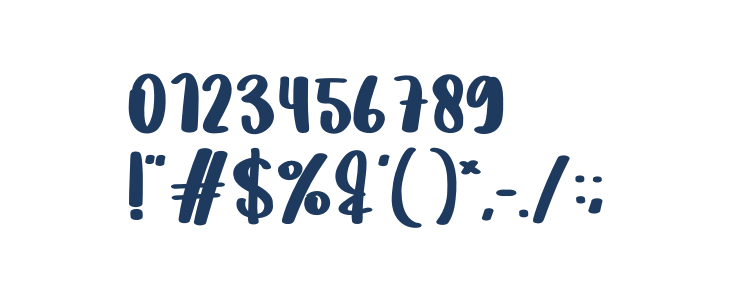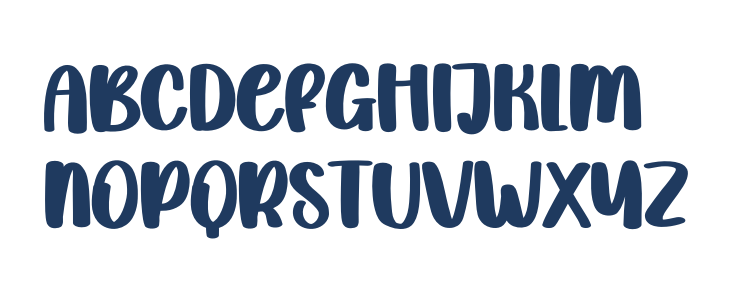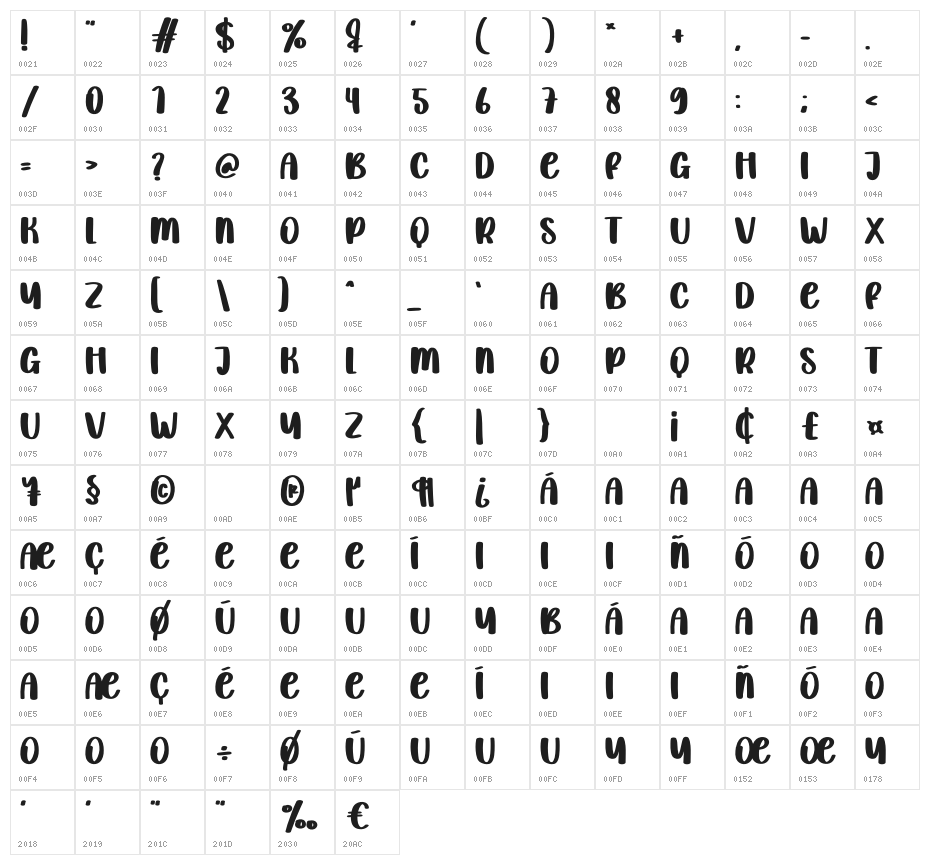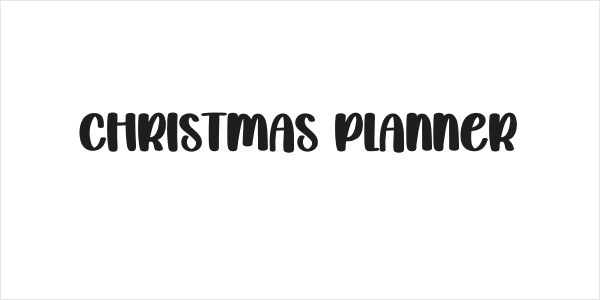
Christmas Planner Font
Christmas Planner Description
A playful, bold handwritten font with rounded edges and consistent stroke width, featuring both uppercase and lowercase letters, numerals, and a variety of punctuation and symbols. The characters have a casual, friendly appearance with a slight bounce and irregularity typical of hand lettering.
| Overall Style | Decorative, Playful, Handwritten |
| Use Case | Headlines, Posters, Greeting cards, Logos |
| Proposed Projects | Holiday cards, event invitations, children's books, festive posters, branding for playful products. |